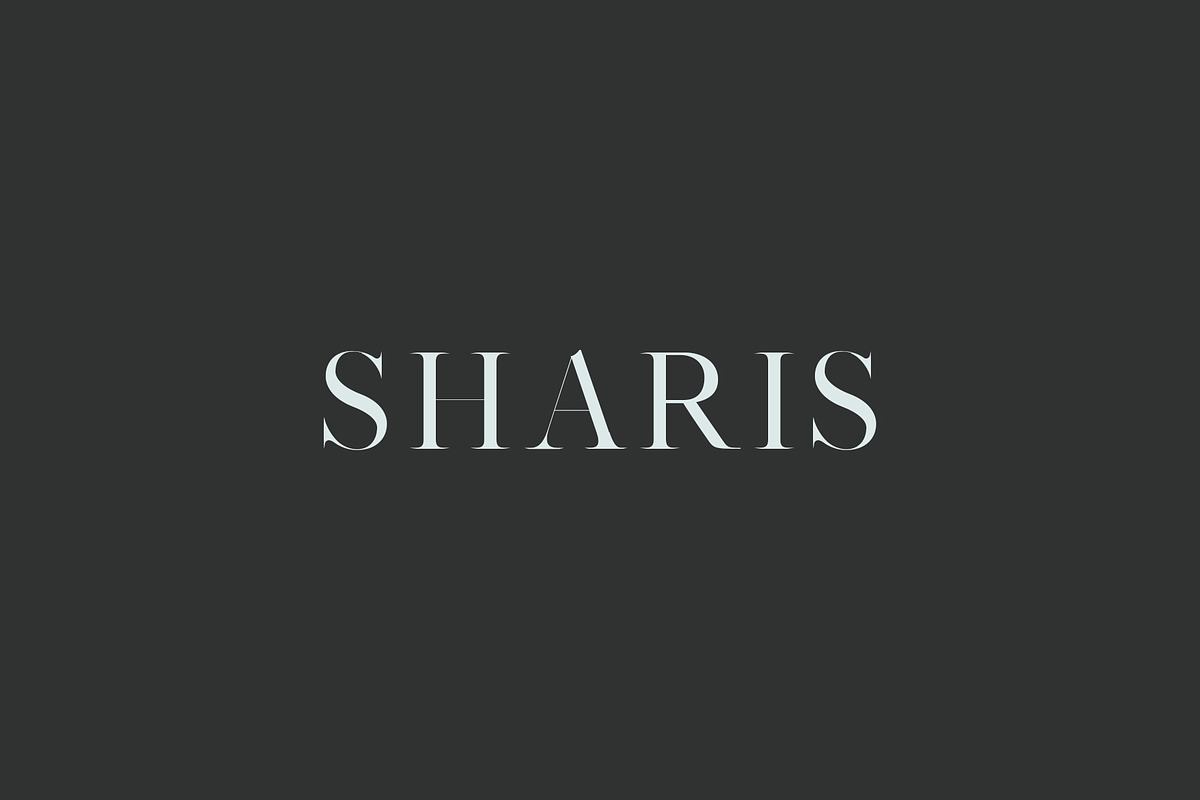
Sharis Serif 7 Font Family Pack Free Download is a beautifully designed serif font collection that offers elegance, readability, and versatility in one complete package. With seven distinct font weights and styles, Sharis Serif is ideal for everything from editorial design and branding to packaging and digital content. This font family brings a refined, professional touch to both modern and classic design projects, making it a top choice for creatives who want flexibility without sacrificing style.
What makes Sharis Serif 7 Font Family Pack Free Download truly stand out is its blend of traditional serif charm with a contemporary edge. Each font in the pack is meticulously crafted for optimal legibility, whether used in print or on-screen. With its smooth curves, stylish serifs, and harmonious spacing, this typeface family adds a sense of trust and sophistication to any visual communication.